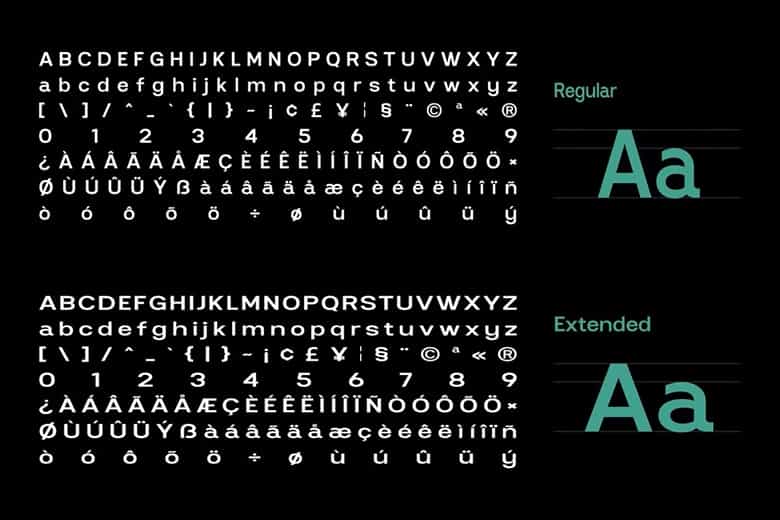
Chopra – a modern and elegant geometric sans serif typeface by creators who want precision and flair. As it comprises perfect balanced characters and clean lines, Chopra is ideal for branding, logos, sites, packaging and editorial (which is the domain of the typeface). It has extended style and support more than 219+ languages.